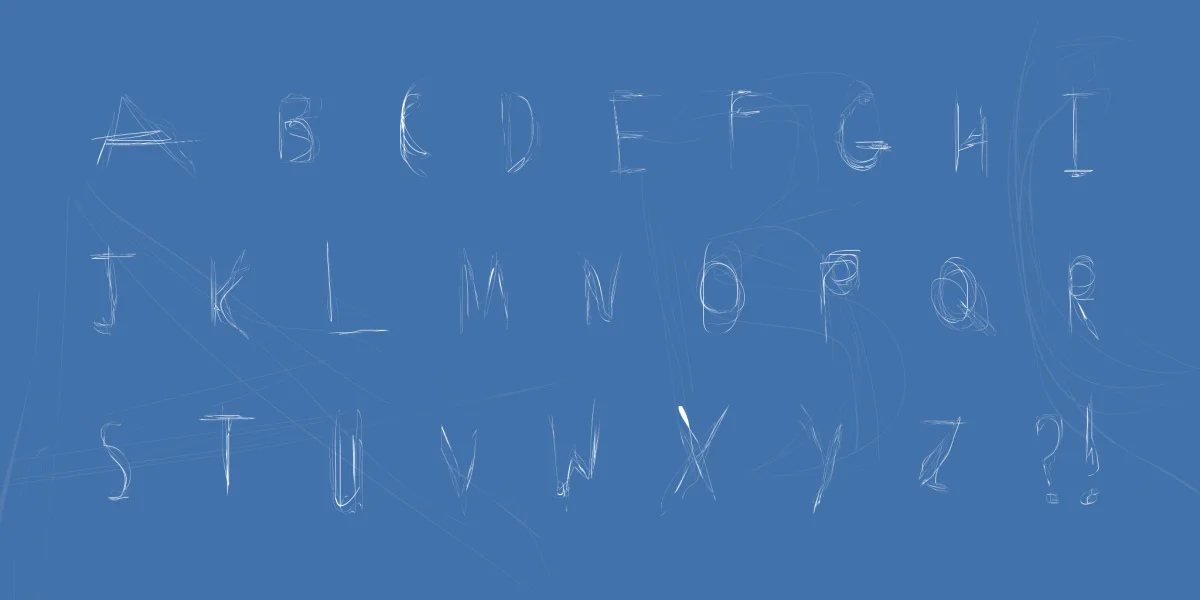
(Caps only) is the hallmark font of Secret Labs, Inc., which nobody has ever heard of (because it's a secret!). A very messy but interesting font, suitable for headlines only.